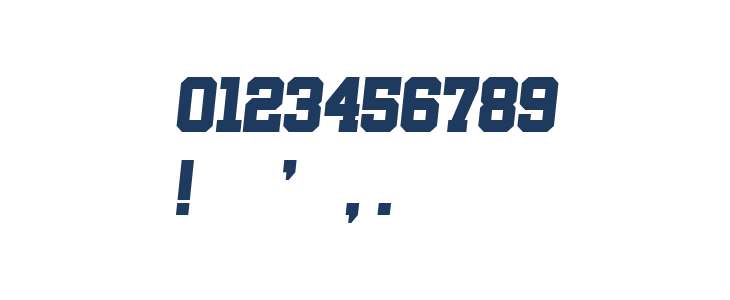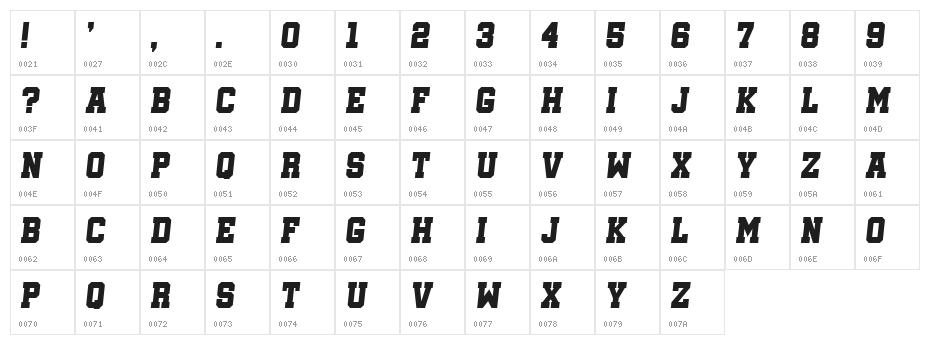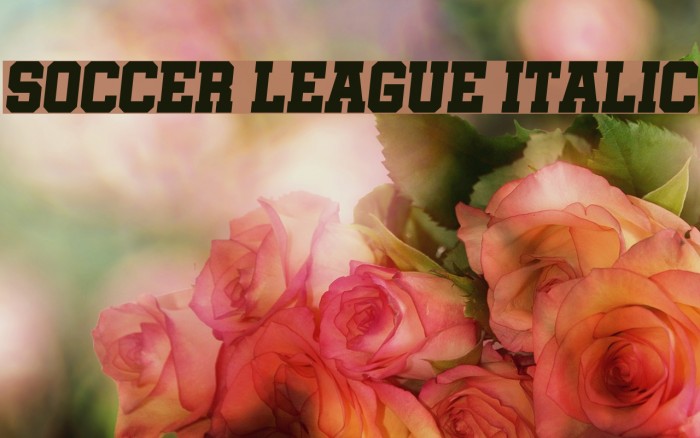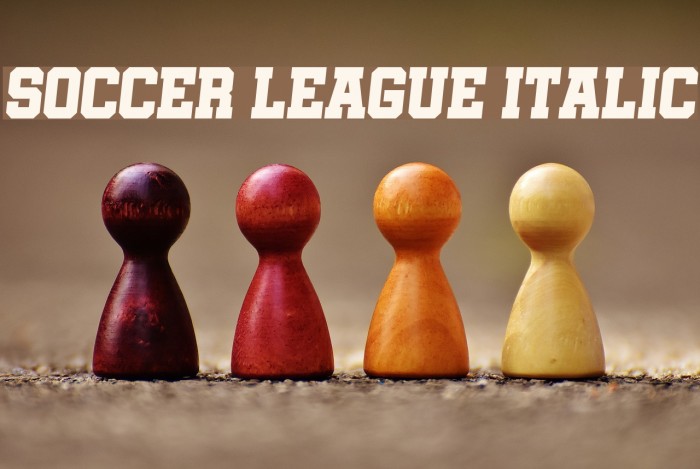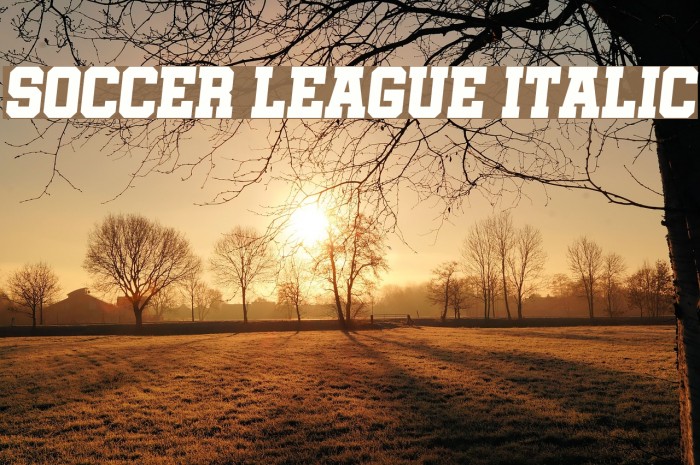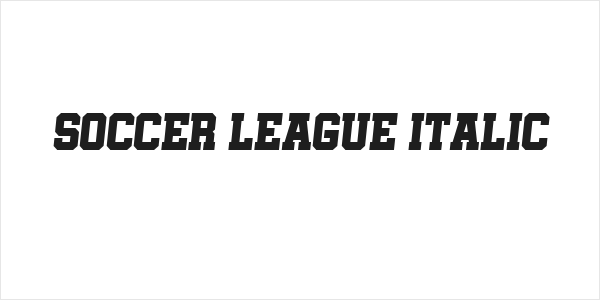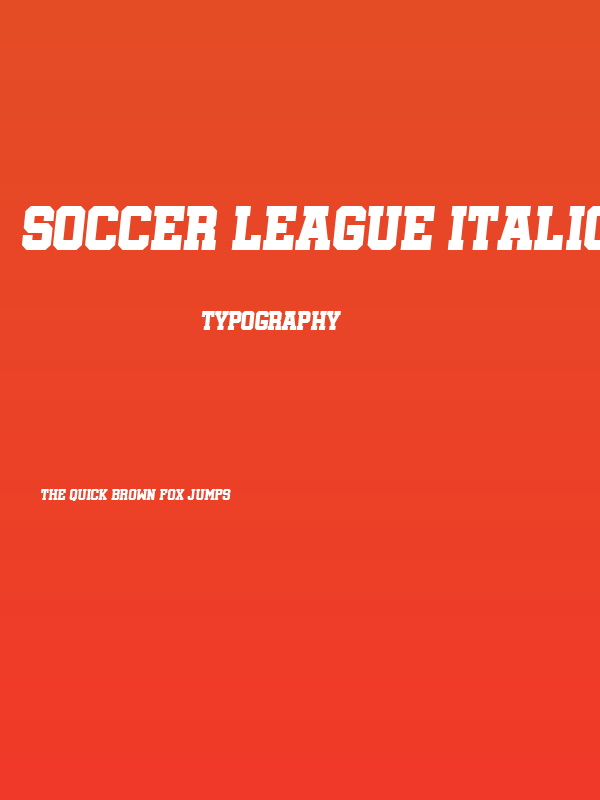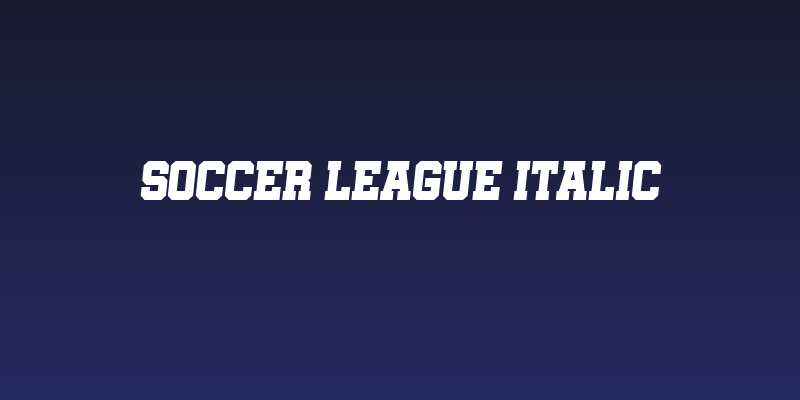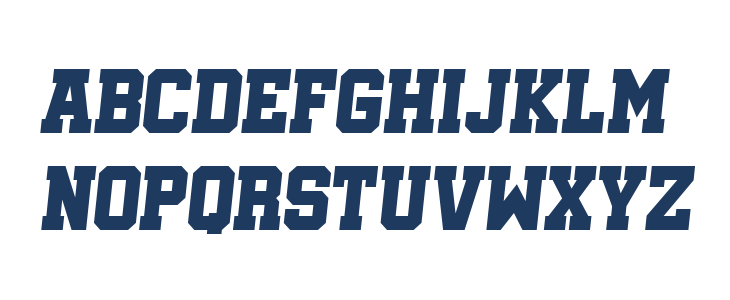
Soccer League Italic Font
Soccer League Italic Description
This font features a bold and dynamic style with a strong presence, characterized by its italicized, blocky letterforms. The uppercase letters are prominent and convey a sense of strength and movement, making it ideal for sports-related themes. The numbers and punctuation maintain the same boldness, ensuring consistency across all characters. The font's geometric shapes and angled lines give it a modern and energetic feel, suitable for capturing attention and conveying a sense of action.
| Proposed Projects | Ideal for sports team branding, athletic event posters, and dynamic logo designs. |